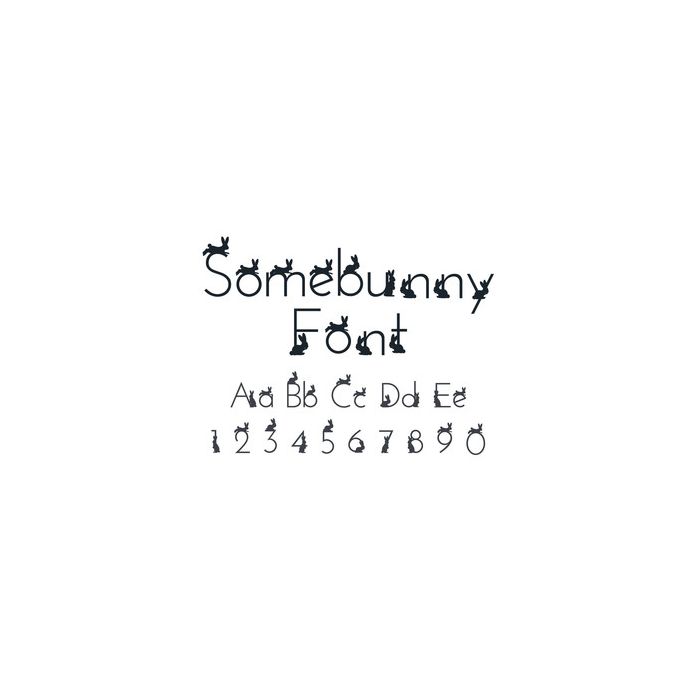
Somebunny Font. Hand drawn font, featuring cute bunny silhouettes, perfect for Easter or animal themed projects! Includes upper and lower case letters, numbers and glyphs. (Kerning may need adjusting) For more design ideas, coordinating designs & products and inspiration, please visit my blog http://www.sarahhurleyblog.com